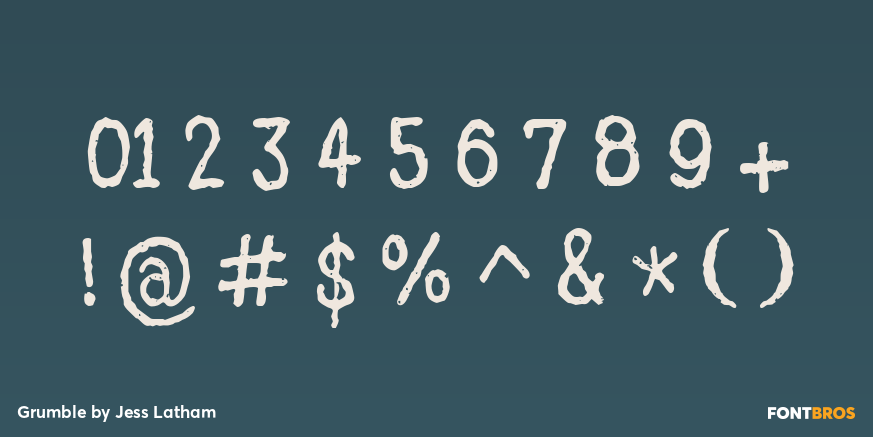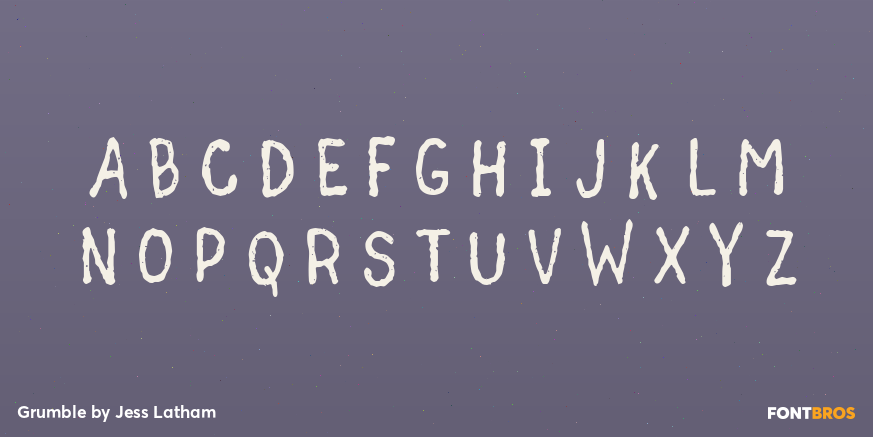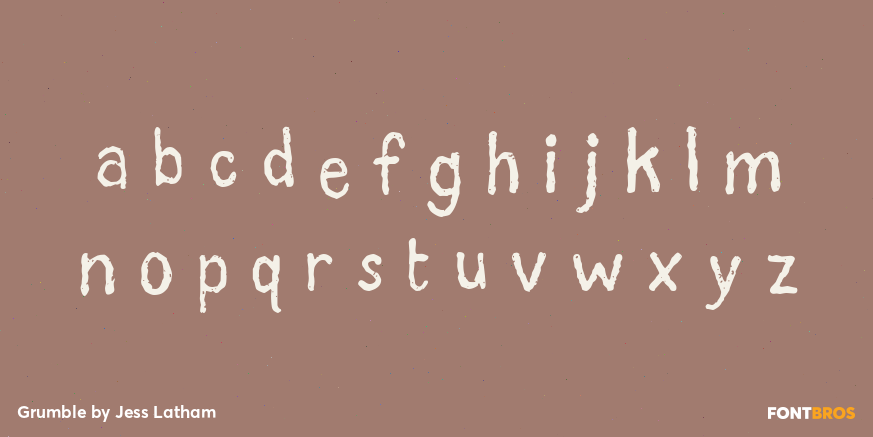
Grumble
Font Family by Jess Latham
Grumble is a bold, casual display sans with a distressed, handwritten look that feels rough, expressive, and intentionally imperfect. Its irregular shapes and textured finish give it an organic, playful attitude that reads as quirky rather than polished.
This single-style font is a strong fit for fun posters, graffiti-leaning graphics, and other display work that benefits from a wacky, urban edge. Use it when you want lettering that feels loose, human, and full of personality instead of clean or formal.
Designed by Jess Latham, Grumble brings together bold weight, handwritten energy, and a worn-in surface that helps headlines and short phrases stand out with a lively, offbeat character.